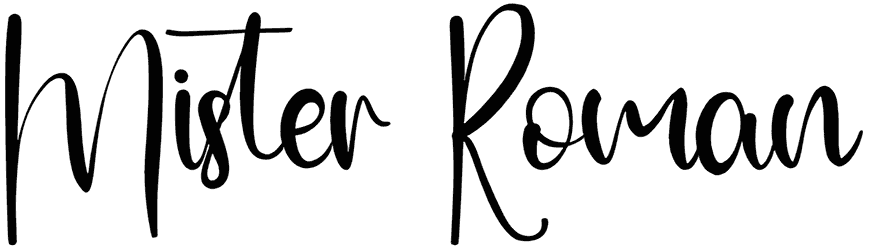
Mister Roman Font
If you’re looking for a font with a light, tropical feel, Mister Roman is an offering that ticks both of those boxes. This handwritten font is an exciting combination of personal aesthetics and illegibility that works with different looks and is helpful for those looking to try a modern look.
So if you want a font that will return to it again and again, this script font can be one of the powerful options for your invitations, personal letters, and logos.